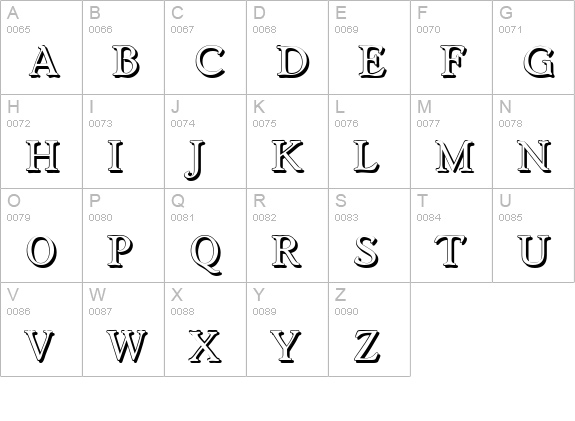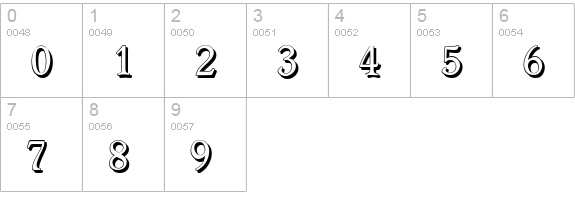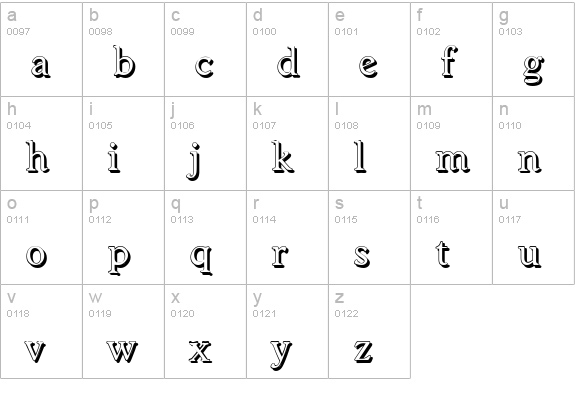
WorcesterShadow-Regular is the standard, neutral variant in the WorcesterShadow typeface family \xE2\x80\x94 well suited to general body text, paragraphs, and standard typographic work.
Introducing WorcesterShadow-Regular font, a versatile typeface that effortlessly combines elegance with a touch of whimsy. With its unique shadow effect, this font is perfect for adding a sophisticated and playful twist to any design project. Its clean lines and stylish curves make it suitable for a wide range of applications, from branding to packaging to invitations. What's even better is that WorcesterShadow-Regular font is completely free to download at FontsMarket.com. Yes, you read that right - this stunning font is available for you to use in your projects without any cost. So why wait? Add WorcesterShadow-Regular font to your collection today and let your creativity shine!